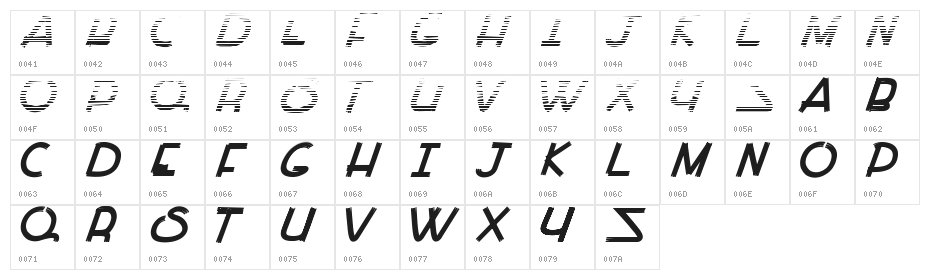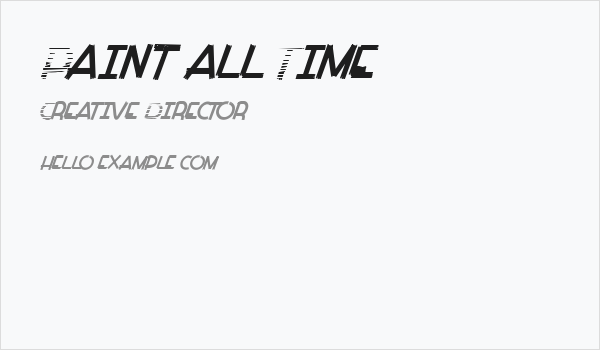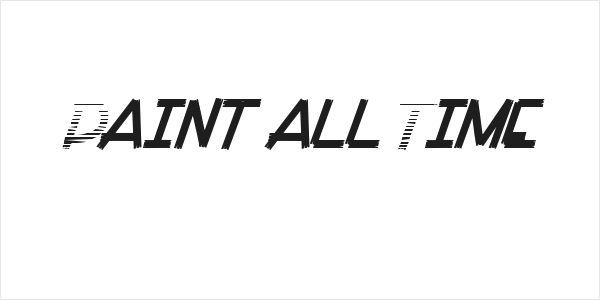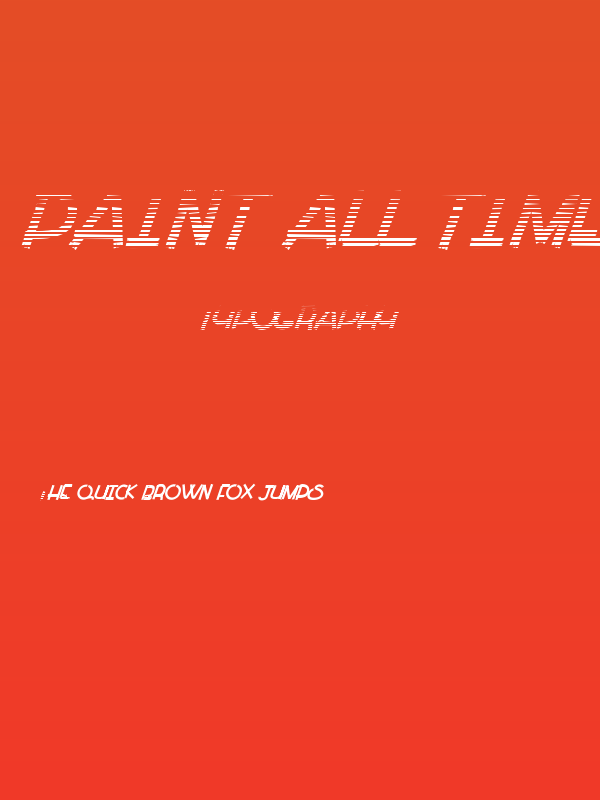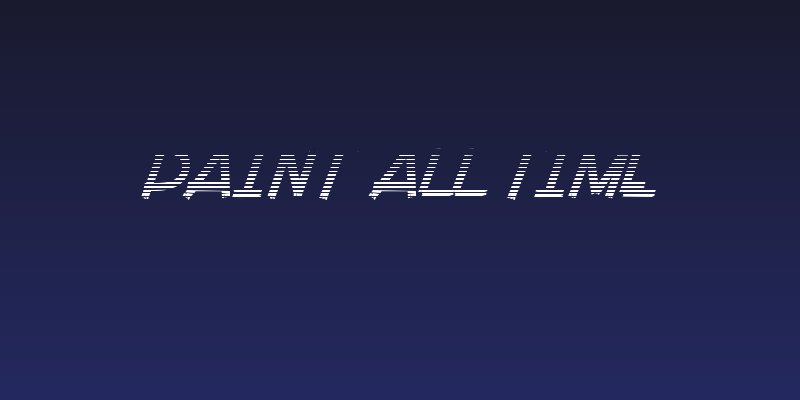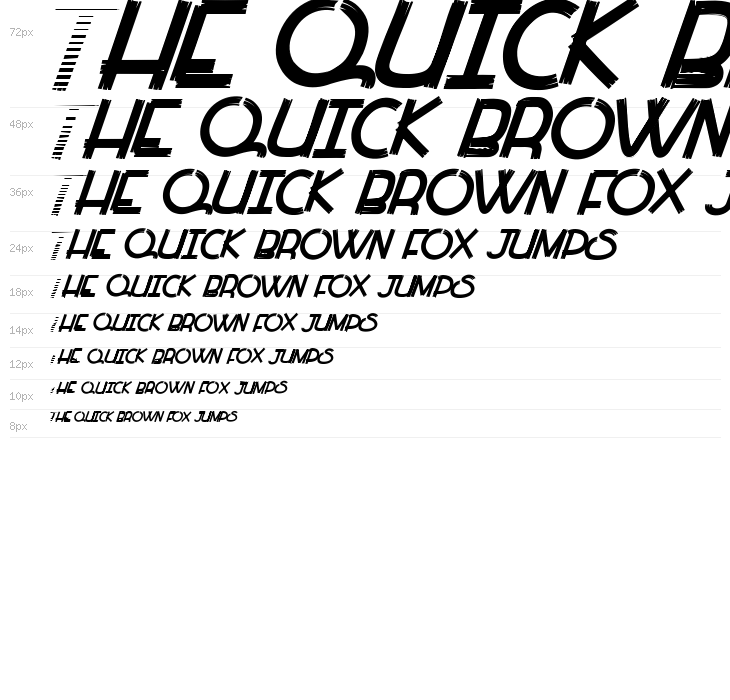
Paint all Time Font
Paint all Time Description
This dynamic and expressive font features a unique, slanted design with a sense of motion and energy. The characters are bold and italicized, with a distinctive striped pattern that adds a modern, edgy feel. The uppercase letters are particularly striking, with sharp angles and a sense of forward momentum. The lowercase letters maintain the same energetic style, ensuring consistency across text. The numbers and special characters are equally bold, making them stand out in any design. This font is perfect for projects that require a strong visual impact and a contemporary aesthetic.
| Proposed Projects | Ideal for sports branding, dynamic posters, modern advertisements, and edgy graphic designs. |